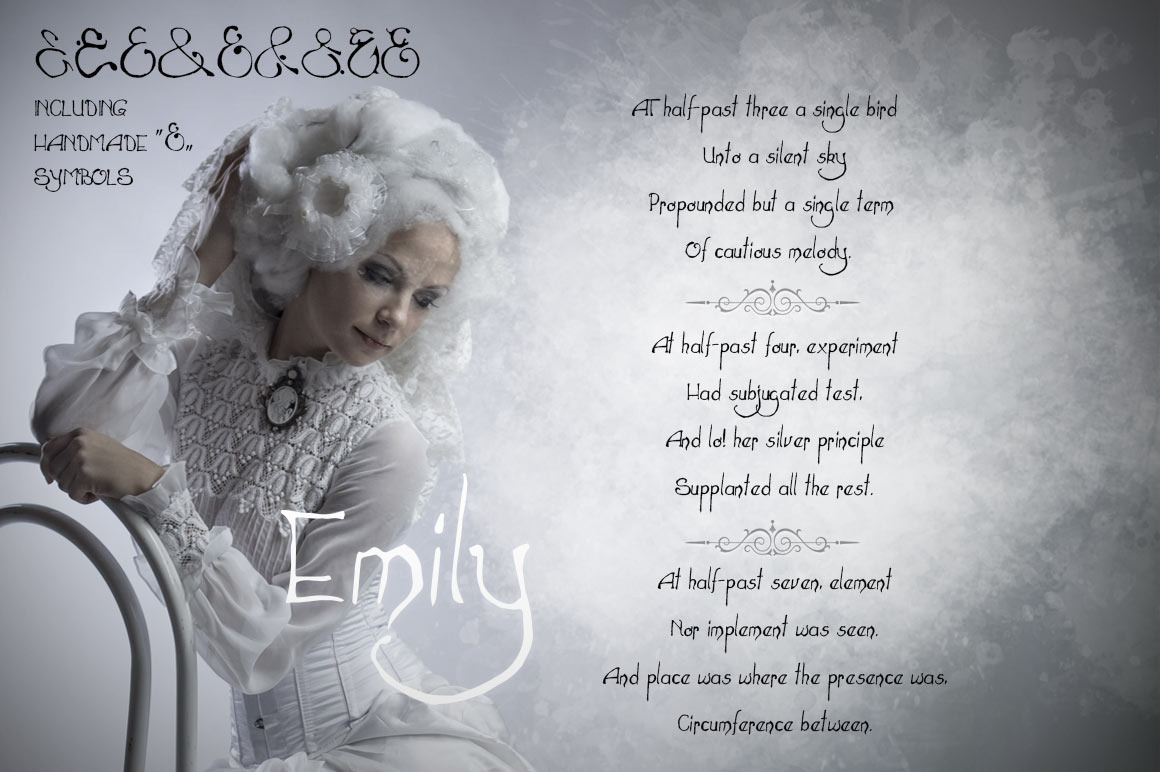
Hand drawn font “Emily”
Hand drawn victorian font “Emily” with upper case characters, lower case characters, numbers, symbols and several different hand made “&” symbols. Including .ttf, .otf and web fonts.